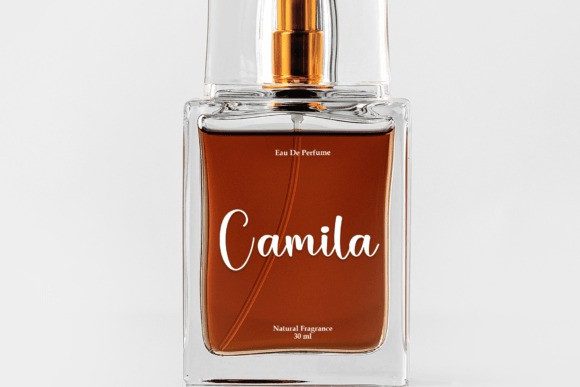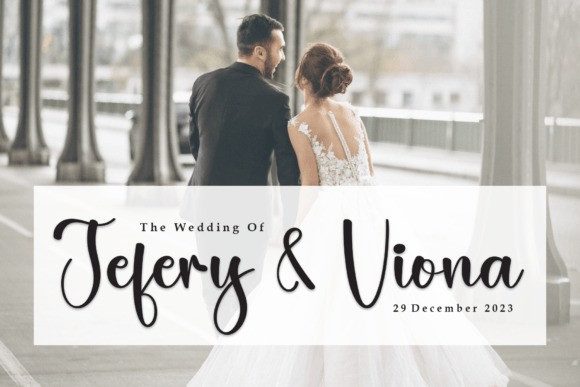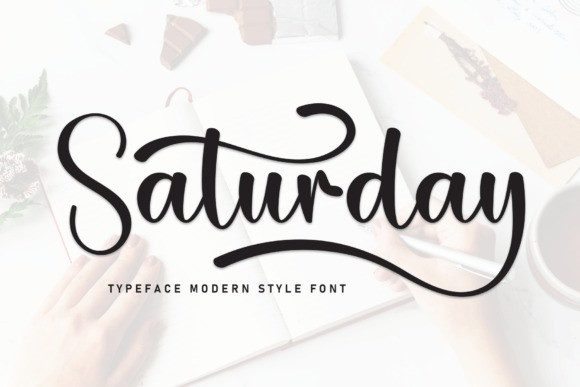
Saturday Type
Saturday Type is an exquisite handwritten font, masterfully designed to become a true favorite. It maintains its classy calligraphic influences while feeling contemporary and fresh. Fall in love with it and bring your projects to the highest levels